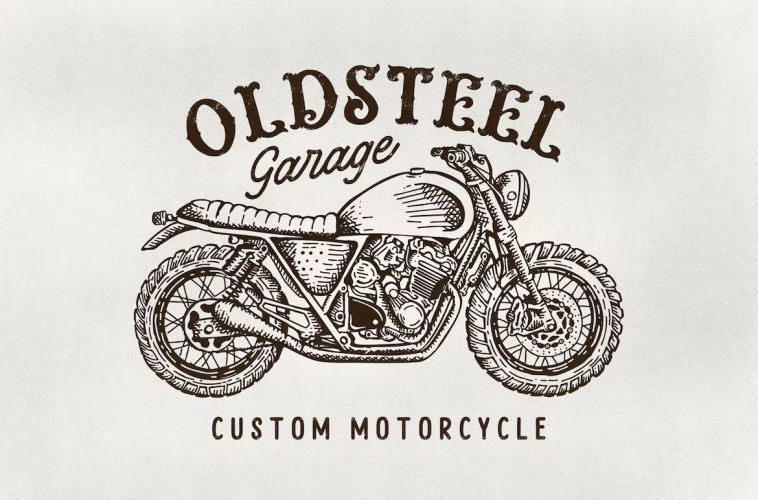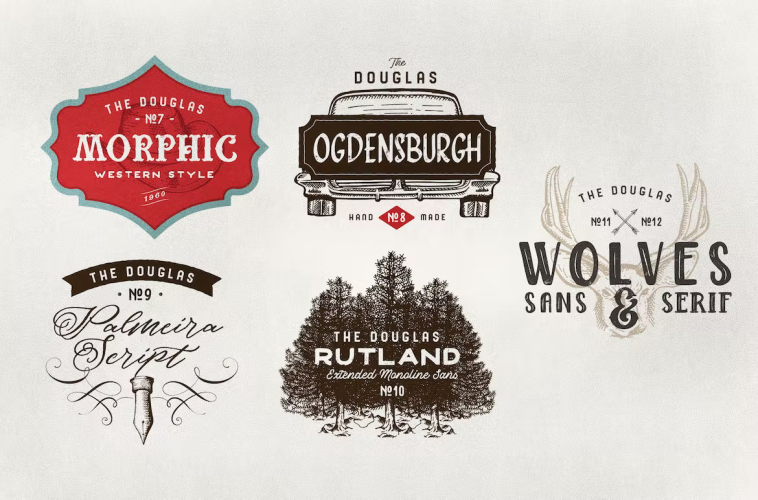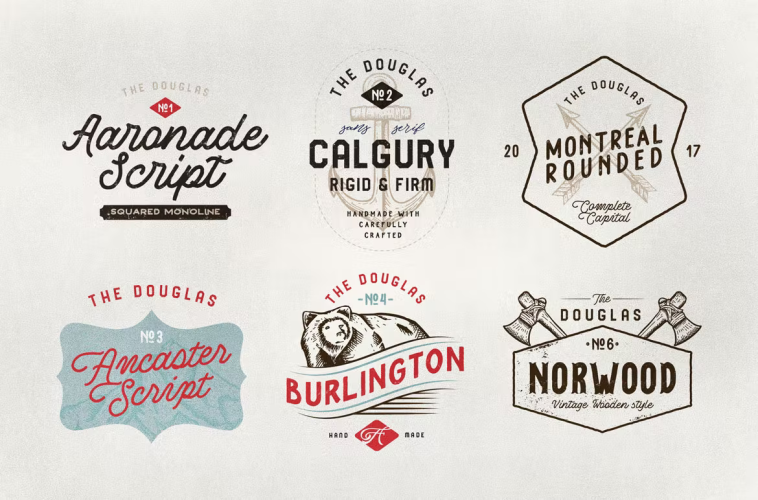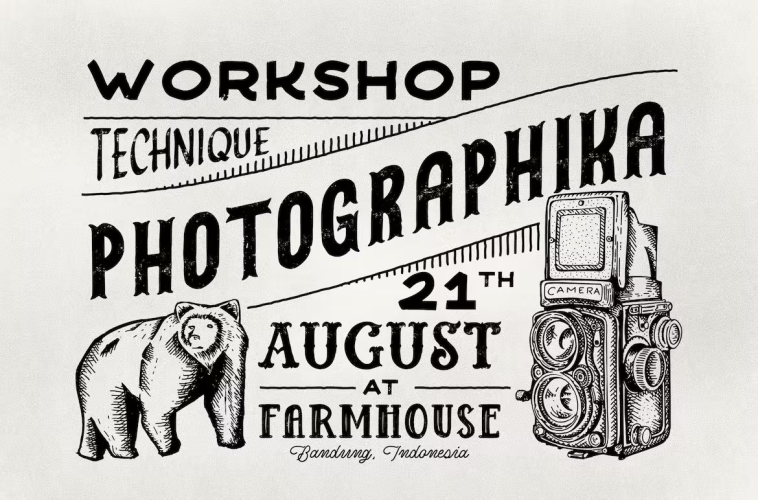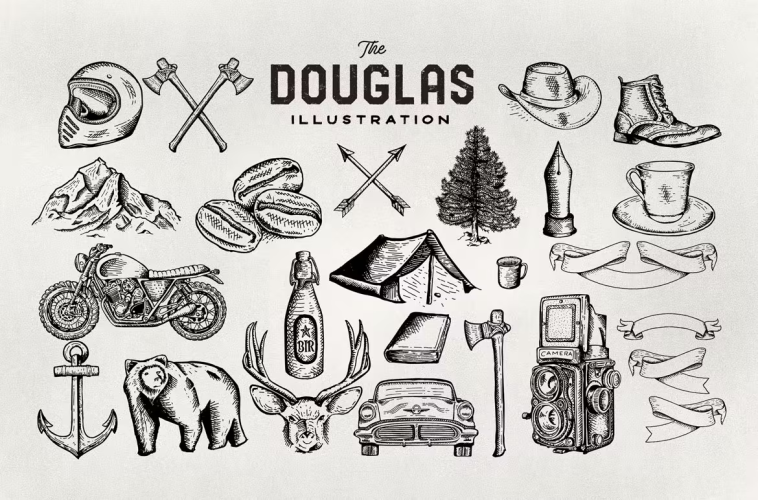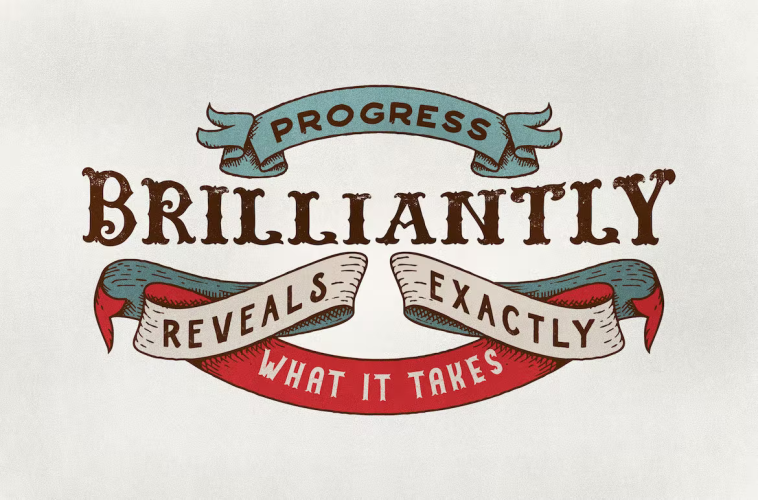
The Douglas Collections Font
THE DOUGLAS COLLECTIONS —
Introducing the new HUGE pack of my work. The DOUGLAS ! Comes with 12 Handmade FONT FILES with rough effect, 25 Detailed Illustration, 24 Editable text Logos and 36 Shape Badges (72 if counting with Line verson of badges).
I’ve never been easier to create the vintage Display image of the product except this one. You can mix and match the font you want to use, the illustration or use the badges on your design. This pack is great to use on two tone color or with colored design like for logos, posters, advertising, book cover, and other artwork.
Where The Douglas Collections Font works best
Reports, white papers and book interiors hold the eye longer when the text face has real serifs; The Douglas Collections Font keeps that rhythm without looking old-fashioned.
Food, spirits and cosmetics brands lean on serif wordmarks to suggest age and care. The Douglas Collections Font gives that signal at wordmark size.
Set The Douglas Collections Font for the body of an award or a diploma and keep the recipient name in a script; the pairing is what makes a document feel official.
What kind of work does The Douglas Collections Font suit?
It sits in the Serif Fonts group and reads as branding, display, handwritten, script. That makes it a candidate wherever those qualities help: headings, packaging, social graphics and brand work. Set it at the size you plan to use before deciding.